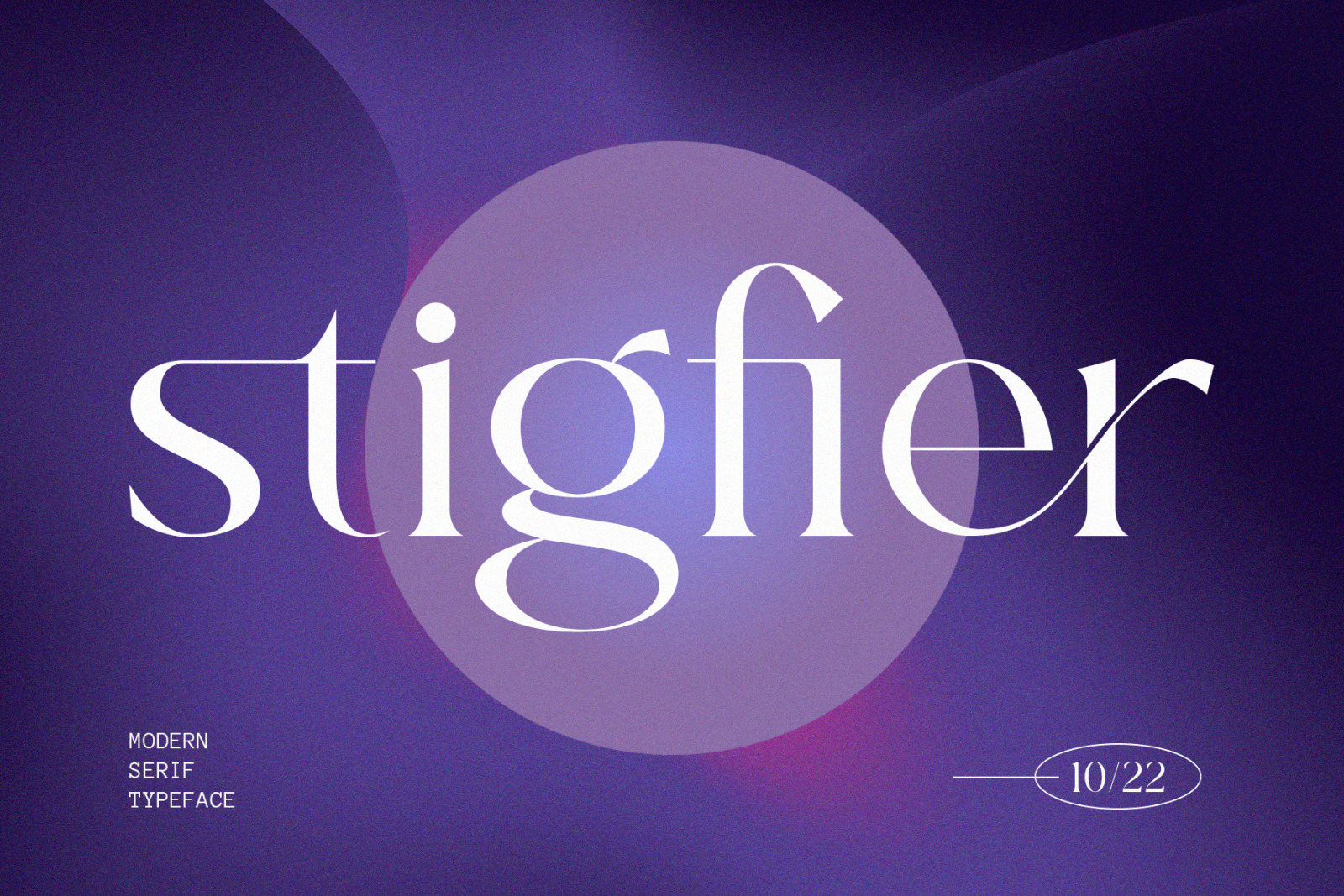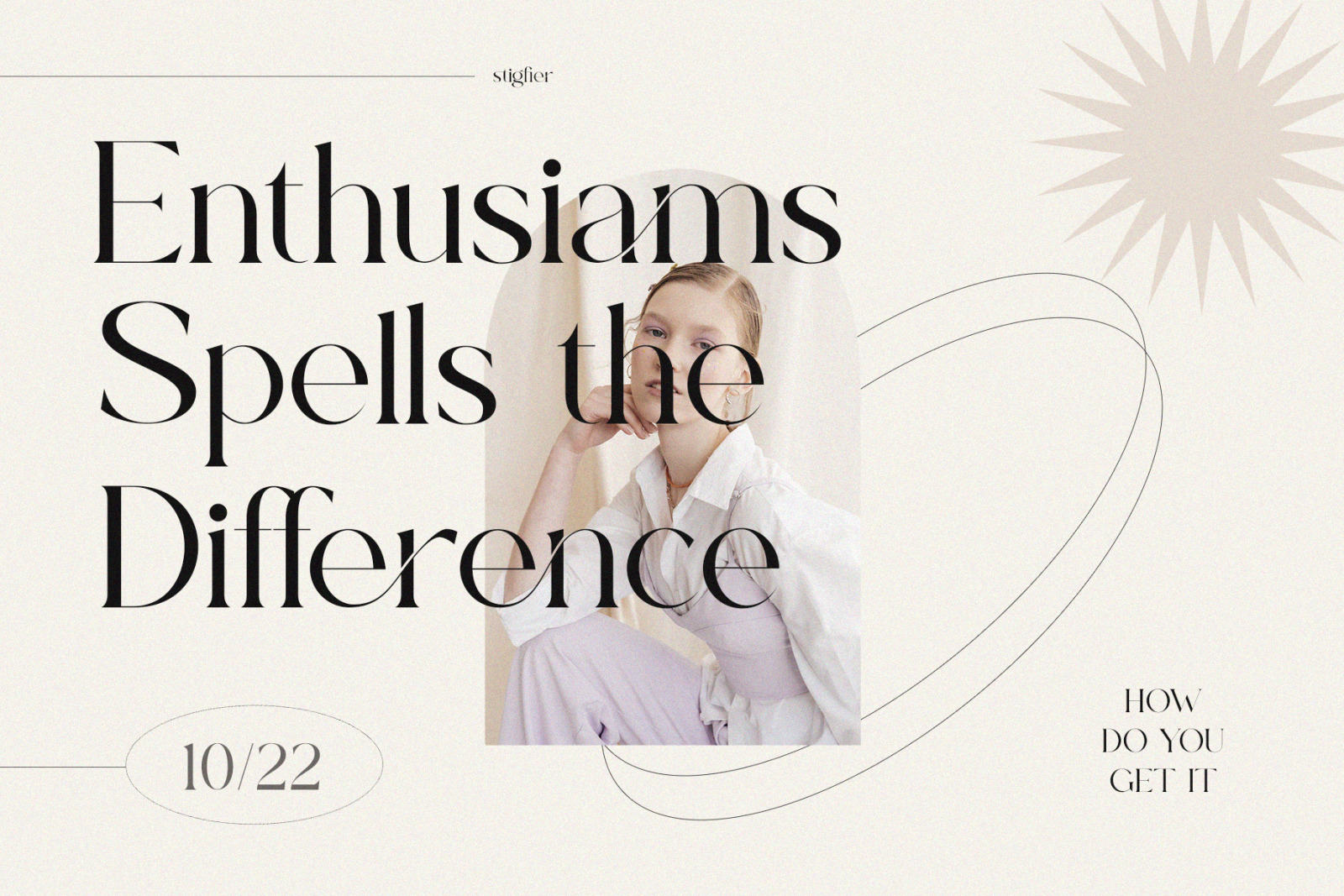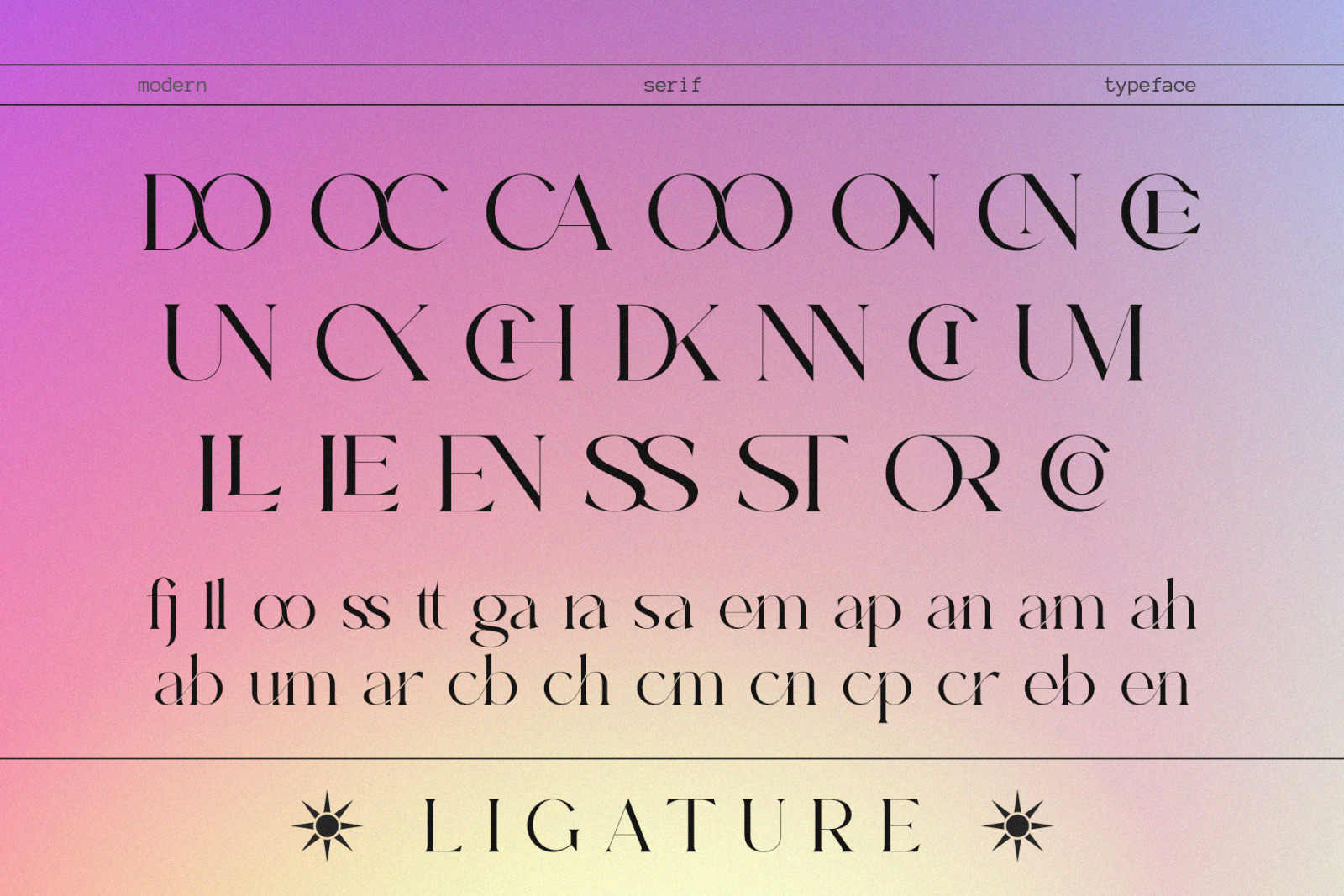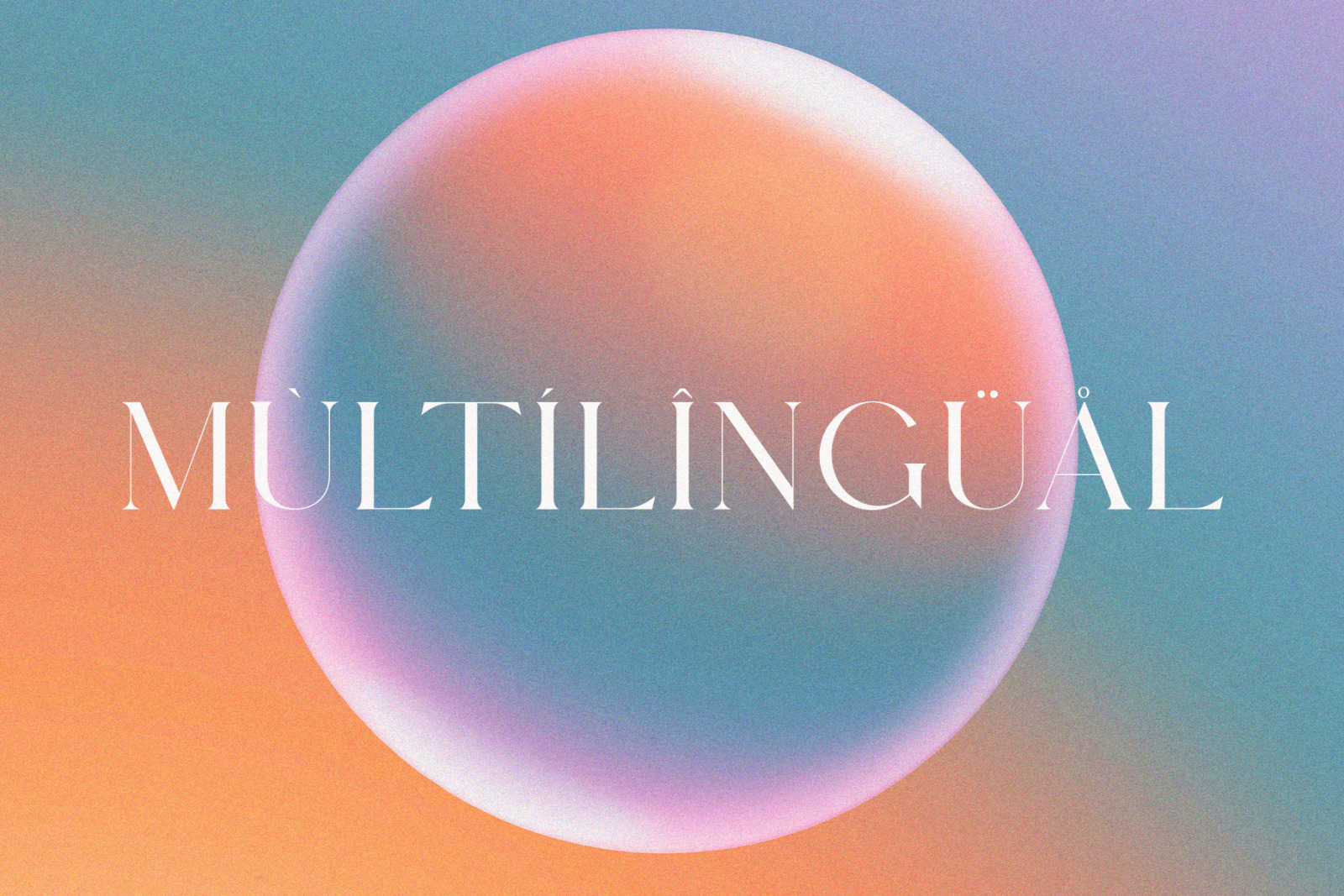
Stigfier Modern Font
Introduced the modern Stigfier serif typeface.
Stigfier font is a serif font type that has an elegant and modern feel, which is very suitable for displaying very small titles, subtitles and text descriptions.
This stigfier is great for writing presentations, about the web or web pages.
Even this font looks cool when used to write an advertisement article, for example articles on social media and so on.
Feature:
Punctuation & Numbers
Ligature
Alternate
Multilingual Support, Stigfier brings out the letters with a stunning look. This elegant serif comes in both uppercase and lowercase letters, with multilingual support. Neatness and fine lines have been added to the lettering to give it an aesthetic and modern feel.